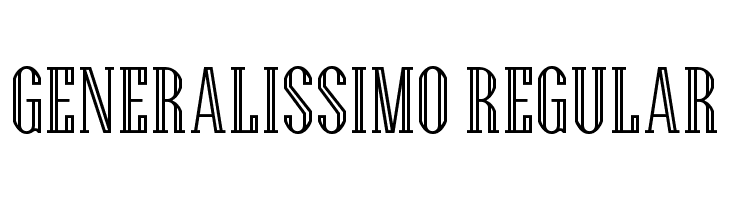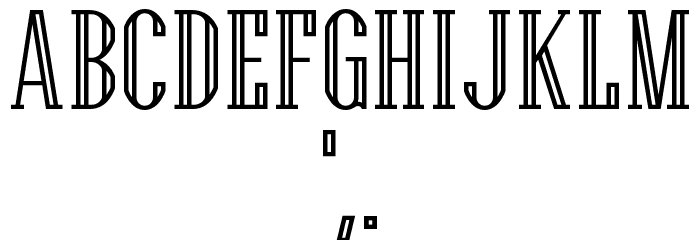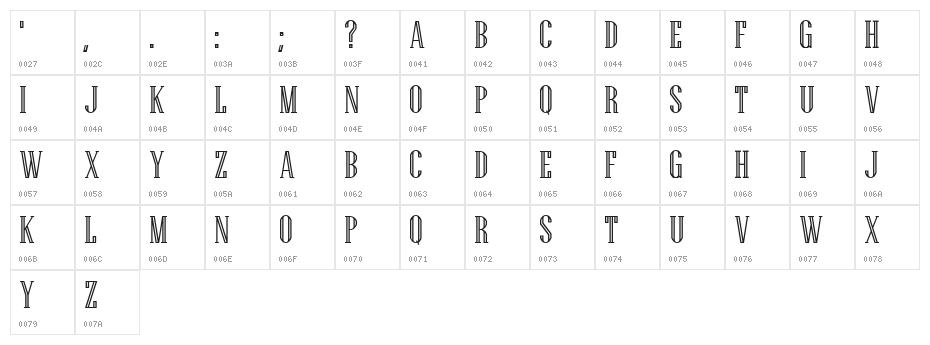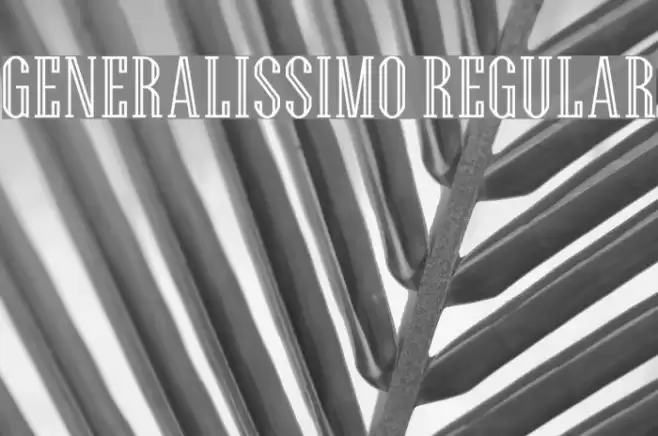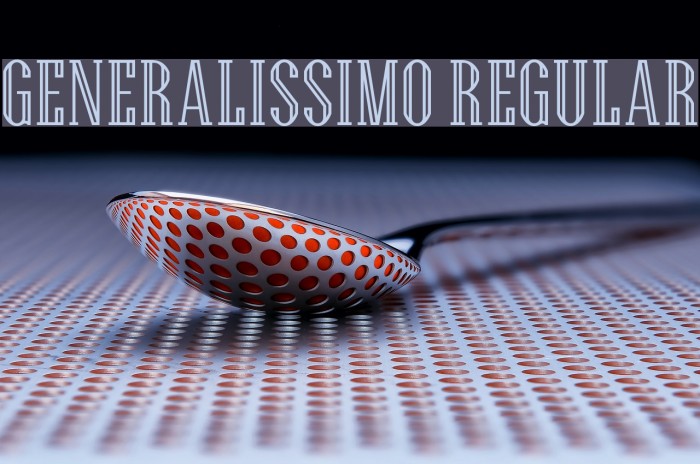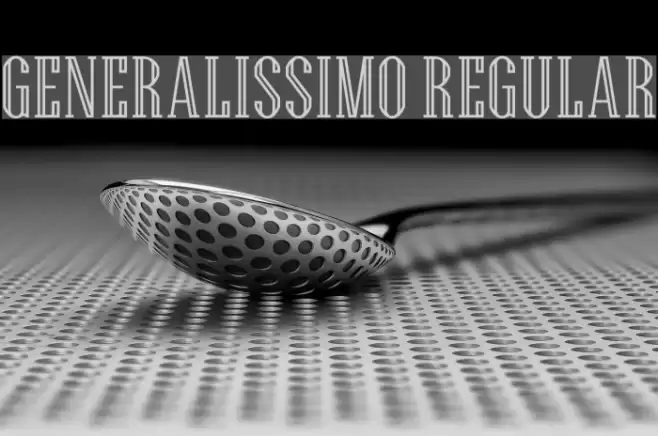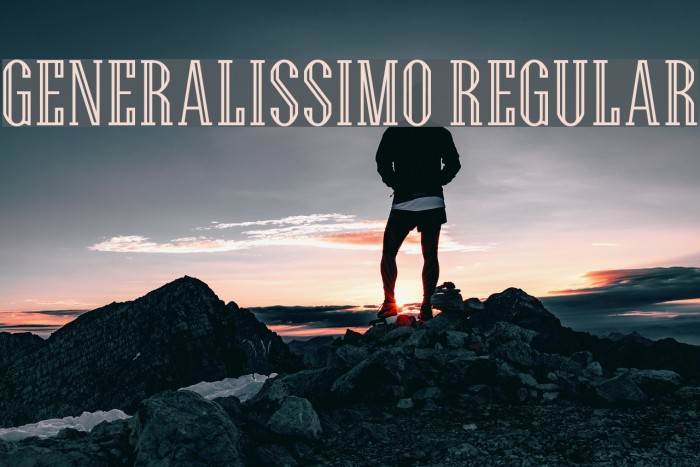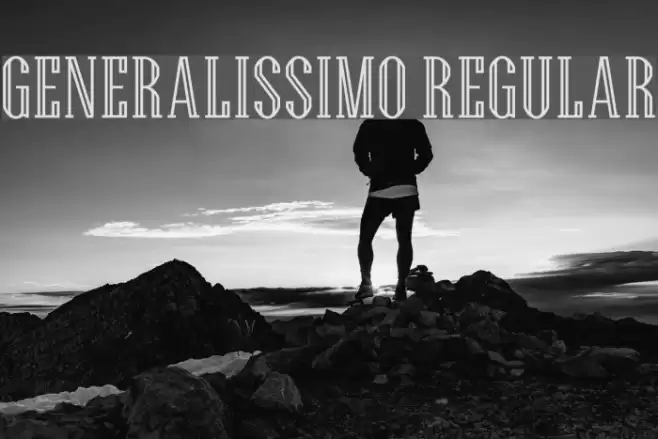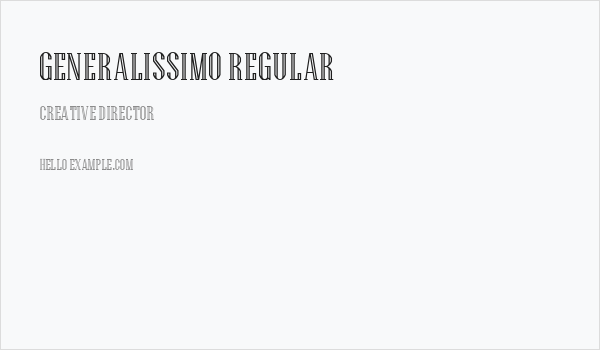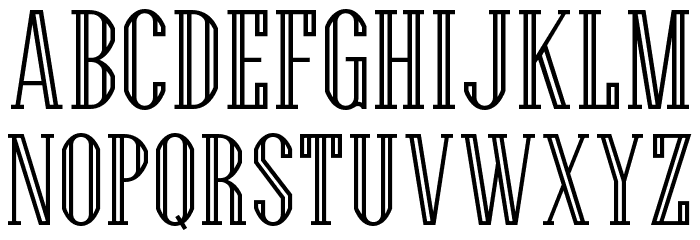
Generalissimo Regular Font
Generalissimo Regular Description
This font features a bold and commanding presence with its tall, narrow letterforms and strong vertical emphasis. The strokes are consistent in width, giving it a monolinear appearance, while the serifs are sharp and pronounced, adding a touch of elegance. The overall design is reminiscent of vintage typefaces, yet it maintains a modern appeal with its clean lines and structured form. The uppercase letters dominate the design, making it ideal for attention-grabbing headlines or titles. The spacing between characters is tight, enhancing its compact and impactful look.
| Overall Style | Vintage, Modern |
| Proposed Projects | This font is perfect for projects that require a strong visual impact, such as posters, magazine covers, branding materials, and signage. Its distinctive style also makes it suitable for fashion-related designs or luxury product packaging. |